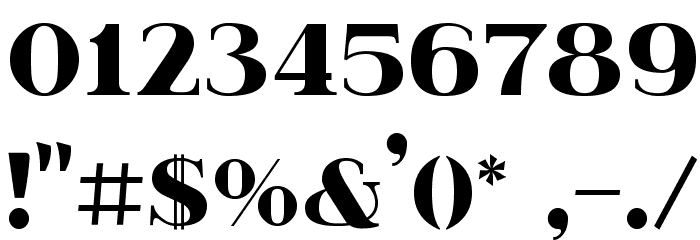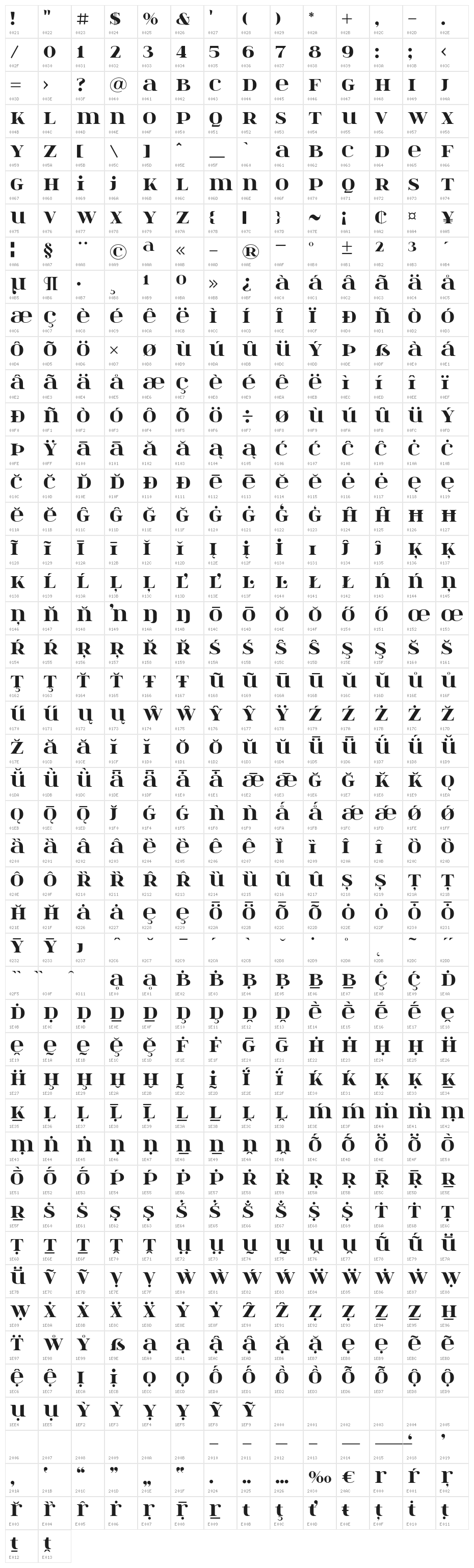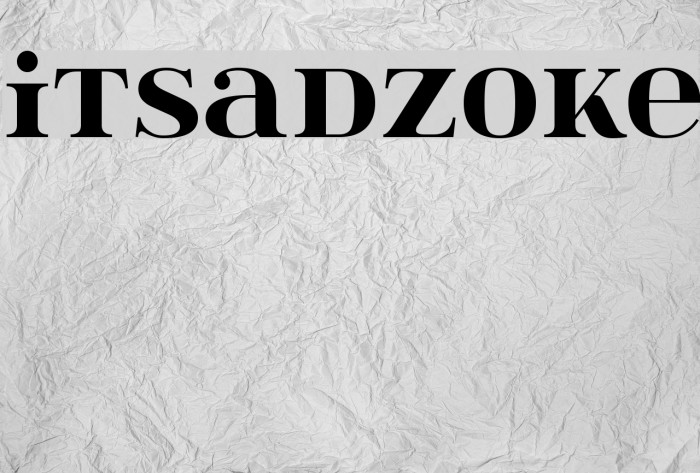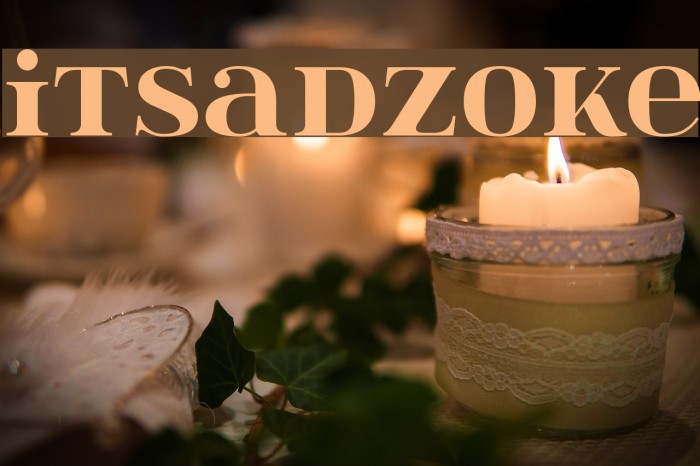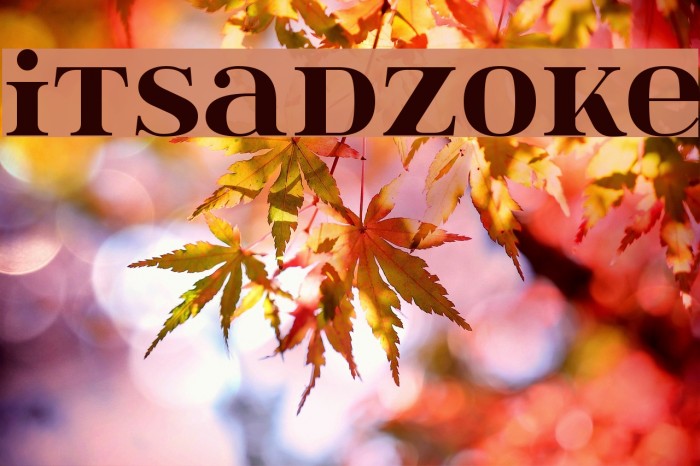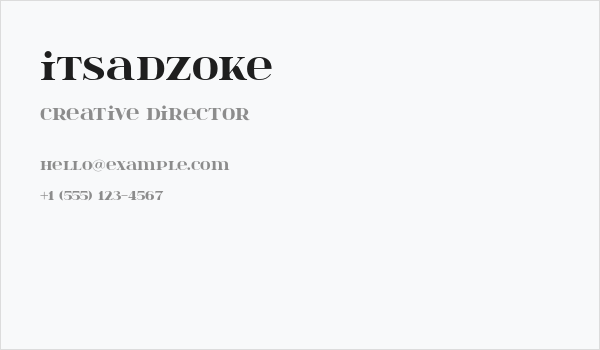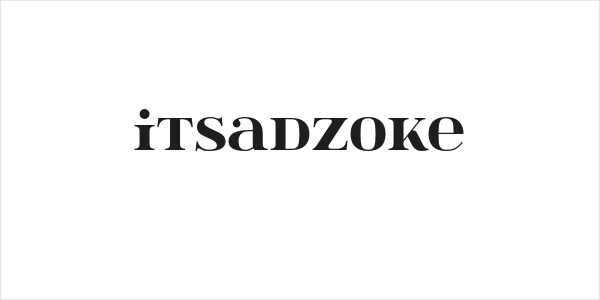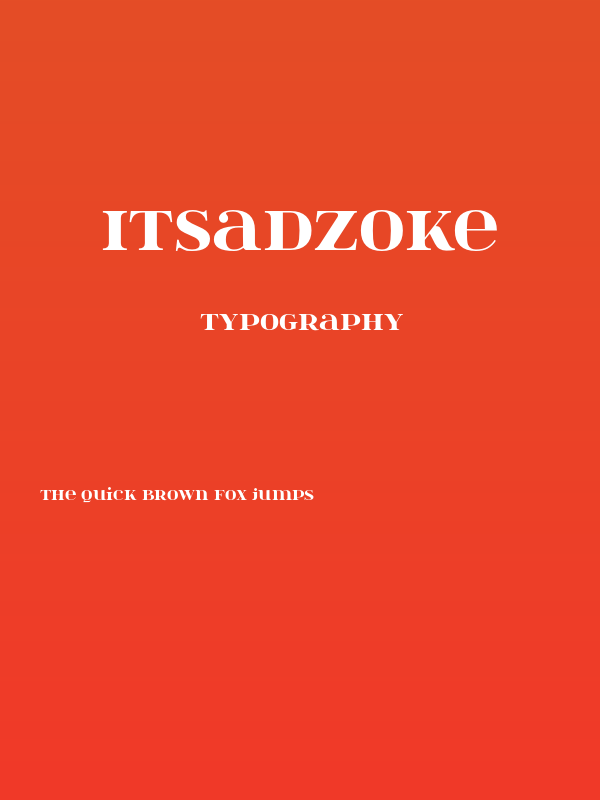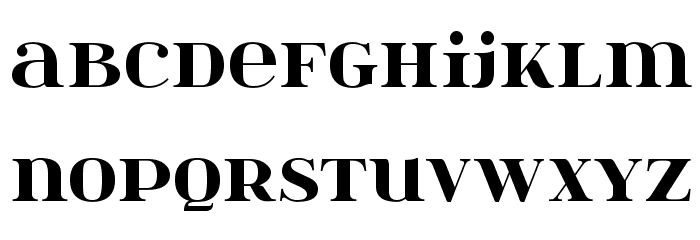
itsadzoke Font
itsadzoke Description
This font features a bold and striking design with high contrast between thick and thin strokes, giving it a dramatic and elegant appearance. The serifs are pronounced and add a classic touch to the overall style. The uppercase letters are particularly distinctive, with unique elements such as the curved tail on the 'Q' and the sharp angles on the 'W'. The lowercase letters maintain a consistent style, with rounded forms and elegant curves. The numerals are bold and clear, making them highly legible. Special characters are designed with the same attention to detail, ensuring a cohesive look across all glyphs.
| Use Case | Headlines, Logos, Editorial Design |
| Proposed Projects | Ideal for luxury branding, editorial design, and high-end packaging where a classic and sophisticated look is desired. |